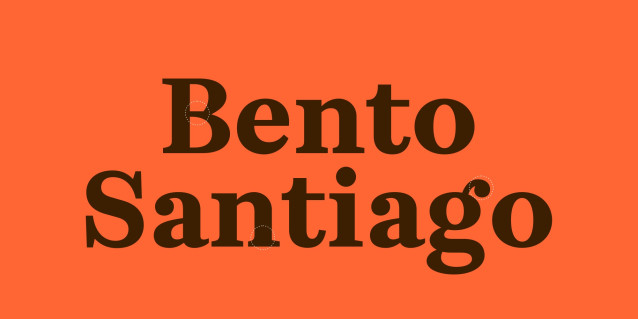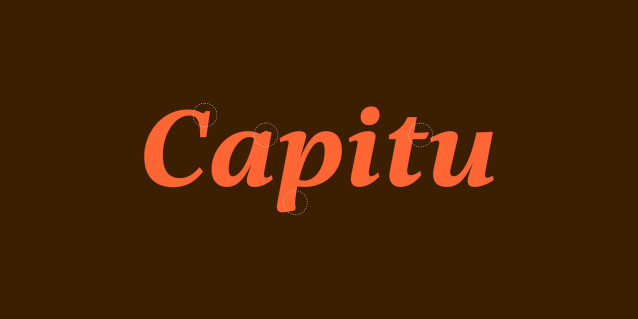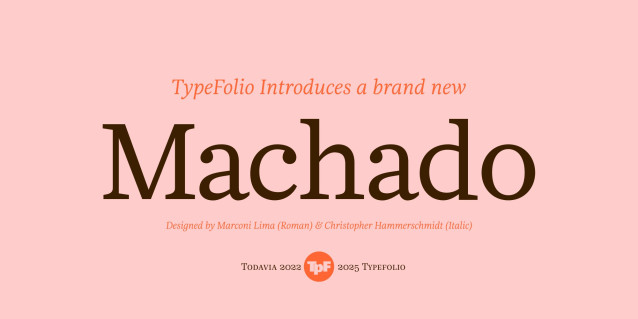
Machado Serifada Font
Machado Serifada Font is a type family developed in 2022 exclusively for Editora Todavia (São Paulo, Brazil), crafted to establish the visual identity of the groundbreaking Machado de Assis Collection. Designed to complement the complete works of Brazil’s most celebrated writer, this type family merges literary tradition with editorial precision, delivering exceptional performance in long-form reading. Primarily intended for editorial design, Machado shines in books, literary collections, essays, magazines, newspapers, cultural catalogs, and institutional publications. Its balanced structure ensures comfortable reading over extended texts, while its refined details add character for covers, headlines, chapter openings, and complex typographic hierarchies. The family boasts an extensive character set and advanced typographic features, including true italics, small caps, multiple numeral styles, ligatures, and meticulously designed ornaments. These attributes provide remarkable flexibility for sophisticated editorial projects, enabling precise typographic control across various contexts and scales. Historically, Machado adopts a thoughtful and authorial approach: its italic is not a mechanical derivative of the roman, but an independently crafted system with its own construction logic, rhythm, and modulation. This design choice engages with classical typographic traditions and enhances the literary essence of the family, broadening its expressive range while maintaining overall coherence. In 2026, after the conclusion of its temporary license, the Machado family will officially join the TypeFolio library, becoming available for editorial, institutional, and cultural projects that require sophistication, consistency, and typographic rigor.